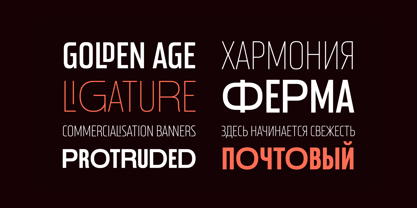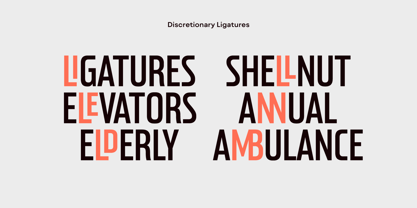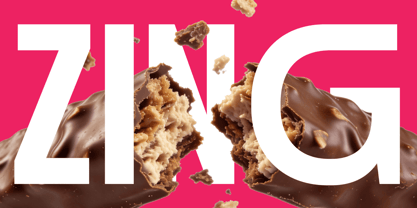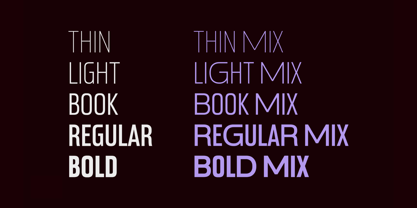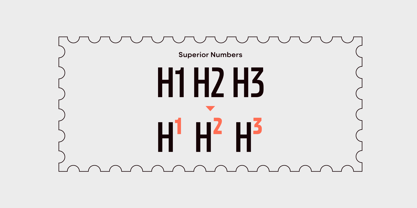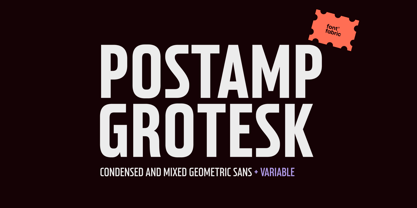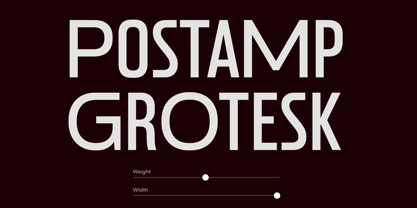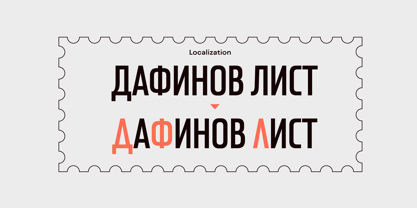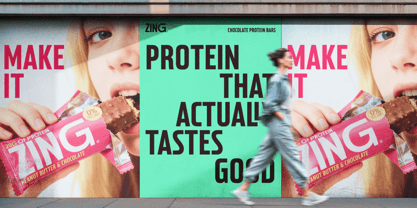
Postamp Grotesk
by Fontfabric
The Postamp Grotesk Font Family was designed by Ivelina Martinova and published by Fontfabric. Postamp Grotesk contains 11 styles and family package options. More about this family
Postamp Grotesk is a modern condensed sans serif typeface that blends Grotesk and Geometric traditions with a refined vintage spirit. Inspired by American typography from the late 19th and early 20th centuries—particularly the lettering found on historic U.S. postage stamps—it reinterprets classic condensed forms through a contemporary lens.
The starting point for the design was a U.S. postage stamp featuring President James Buchanan. Its distinctive letterforms sparked a deeper exploration of stamp typography and early American type specimens, ultimately evolving into a versatile display type family. With open terminals, compact proportions, and carefully balanced geometry, Postamp Grotesk captures the elegance of the 1920s–30s while remaining unmistakably modern.
Postamp Grotesk is an excellent choice for designers seeking expressive typography without sacrificing clarity. Whether you're working on branding, packaging, editorial headlines, advertising, logos, or digital interfaces, the typeface offers strong presence, legibility, and flexibility.
With five weights, two variable axes (weight and width), OpenType features, and Latin and Cyrillic support, Postamp Grotesk adapts seamlessly to a wide range of creative scenarios. Elevate your designs with a typeface that feels confident, focused, and unmistakably distinctive.